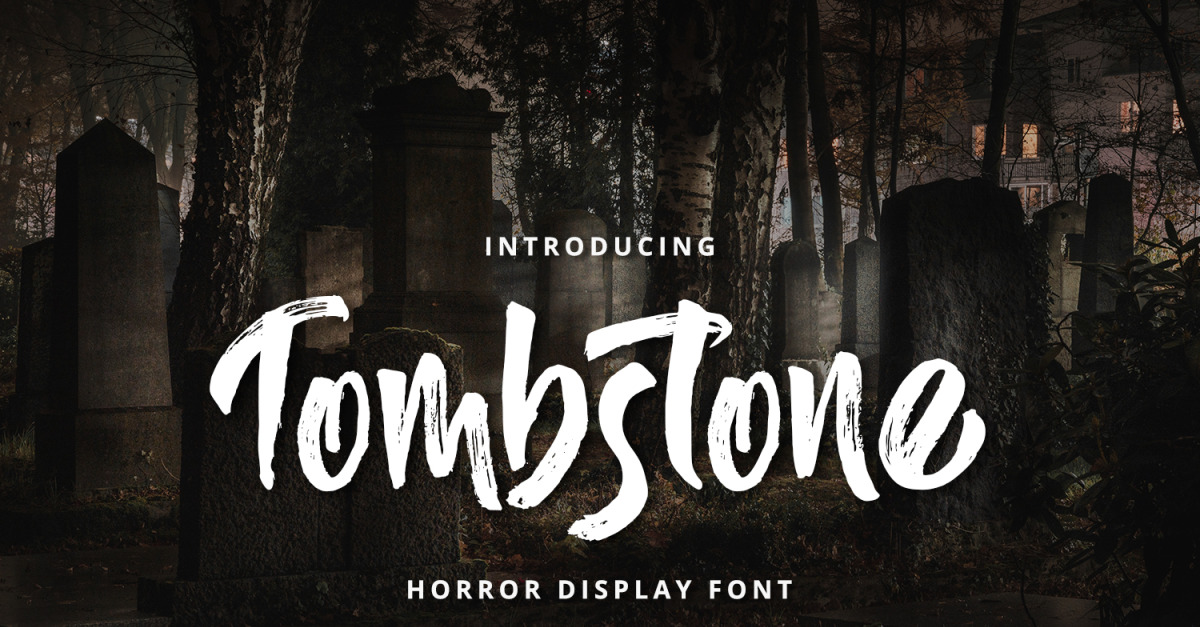
Tombstone - Horror Display Font
Tombstone is a stunning horror display font with cute and playful feels. It will be perfectly used for Branding, Logo Design, Lettering, Logotype, Clothing, Poster, magazine, packaging, posters, shopping bags, t-shirts, book covers, photography, special events and other design project.